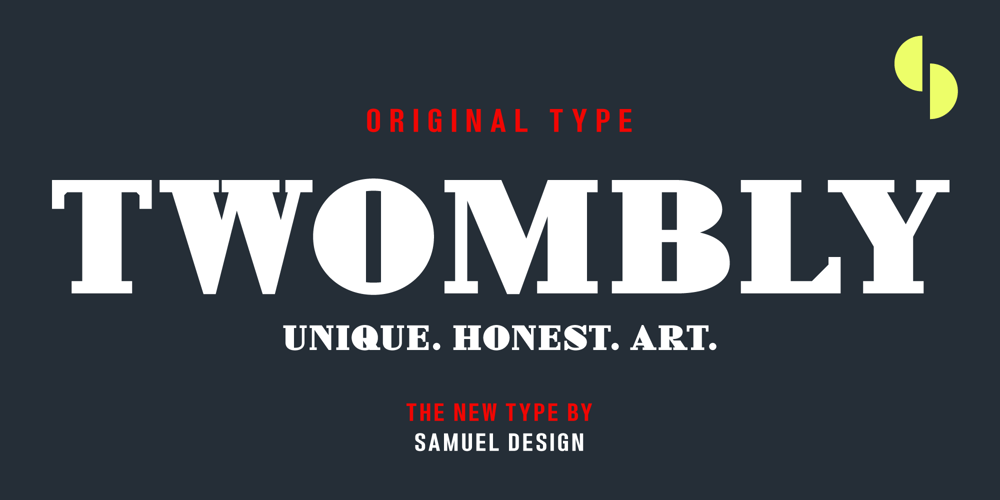
Twombly Font Family was designed by SAMUEL DU and published by SAMUEL DESIGN. Twombly contains 1 styles and family package options. The name of this font is TWOMBLY, which is inspired by the abstract art master Cy Twombly. This original typeface has an Art Deco style with a firm, straightforward, confident character. Its self-respect is HEAVY, but it is very elegant and has a literary temperament. This font reveals a calm and calm temperament from Northern Europe. The details of the triangle used as a transition in the serif are full of playfulness, which makes the whole font have a youthful and cutting-edge feeling.